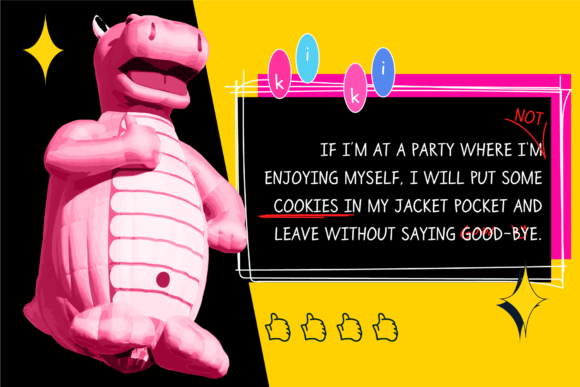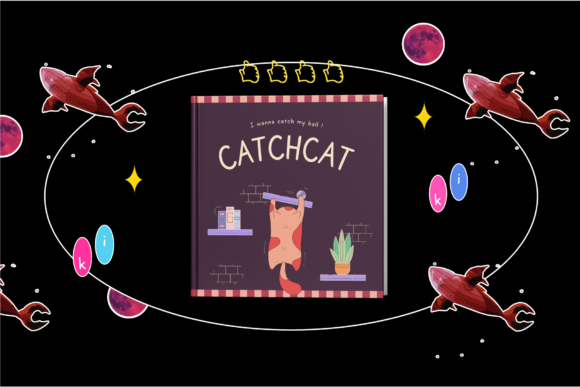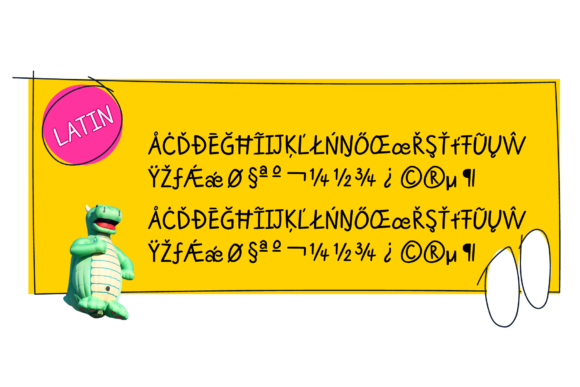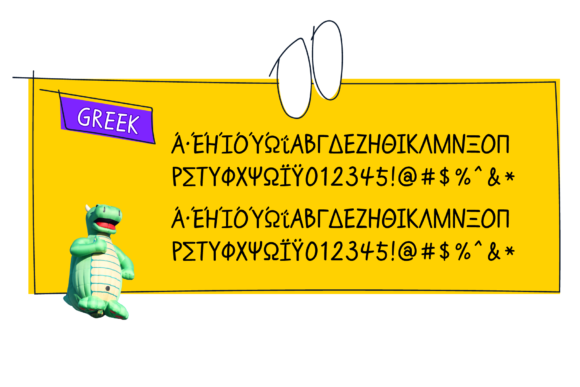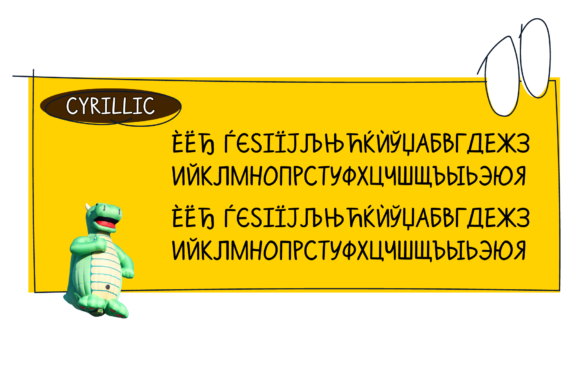
About Hikiki Font
“Hikiki” is a clean and casually styled handwritten font that is versatile enough to suit a wide array of design purposes. Whether you’re in need of a font for a logotype, headline, corporate identity, brand identity, apparel industry, poster, music, movie, game, magazine, book, comic, cartoon, YouTube, Instagram, website, or any other creative design project, “Hikiki” can seamlessly integrate into your vision.
The font’s clean and casual appearance lends a sense of simplicity and approachability to your designs. Its adaptability makes it suitable for diverse design contexts, allowing it to effortlessly accommodate a broad range of projects spanning various industries.
In essence, “Hikiki” can be a valuable asset in your design toolbox, enabling your creative concepts to come to life with a font that conveys a contemporary and laid-back essence. Its adaptability and compatibility with a multitude of applications make it an excellent choice for designers aiming to enhance their projects with a font that effortlessly complements a variety of design scenarios.